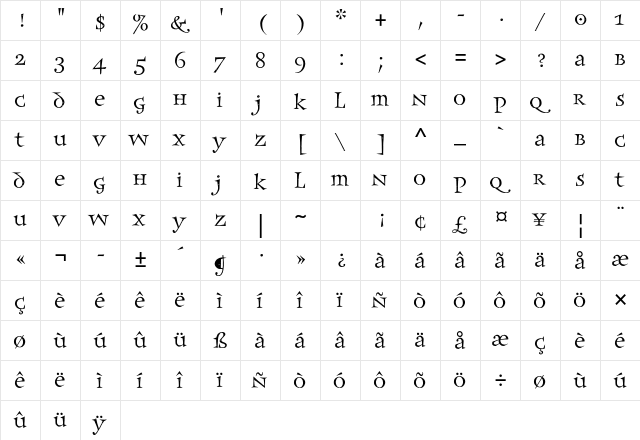
Frances Uncial Std Regular
| Designer | Michael Gills |
Design Context for Frances Uncial Std Typeface
Frances Uncial Std takes a measured approach to typography — its balanced proportions and neutral character make it a reliable workhorse for both digital and print work.